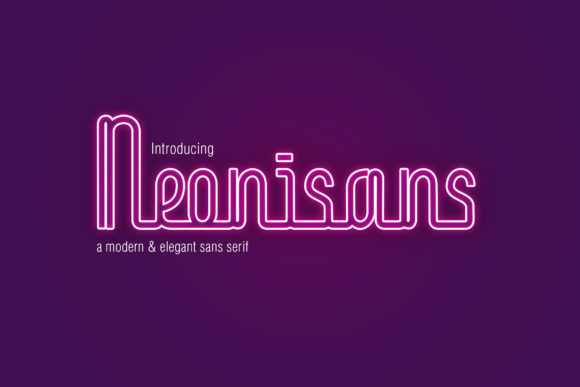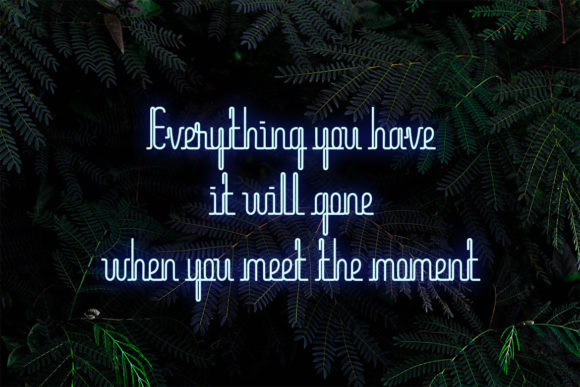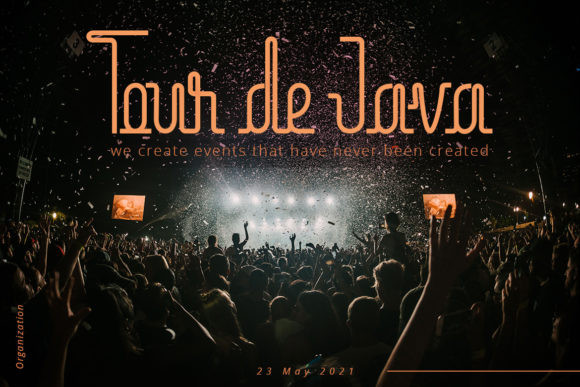
Neonisans Font
Neonisans is a modern and tech looking display font. No matter the topic, this font will be an incredibly asset to your fonts’ library, as it has the potential to elevate any creation.